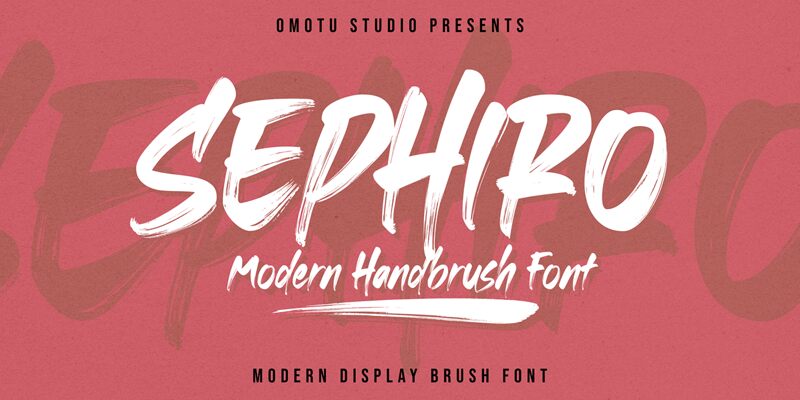
Sephiro
Sephiro font by Omotu Studio exudes a dynamic brush style with a distinctly condensed form. Its artistic strokes convey both energy and elegance, making it perfect for creative projects that seek to captivate and inspire.
Visualize Sephiro in branding materials, posters, or digital content where a bold and expressive statement is needed. As a free font, it offers designers the flexibility to download and experiment without constraints, unlocking new realms of creativity. Whether used in headlines or logos, Sephiro's striking appeal cuts through the ordinary to leave a lasting impact.
Embrace its uniqueness and transform your design vision into reality with this versatile typeface.